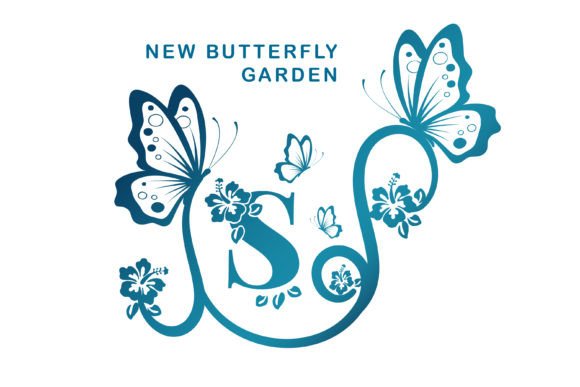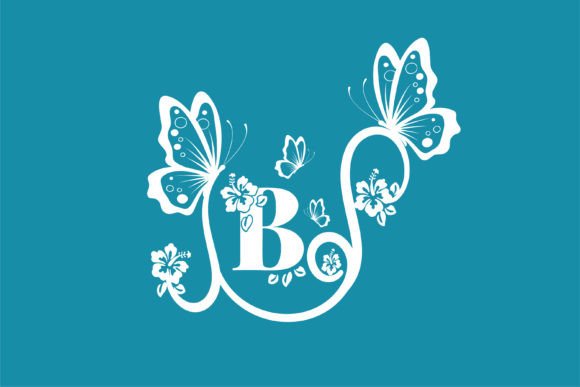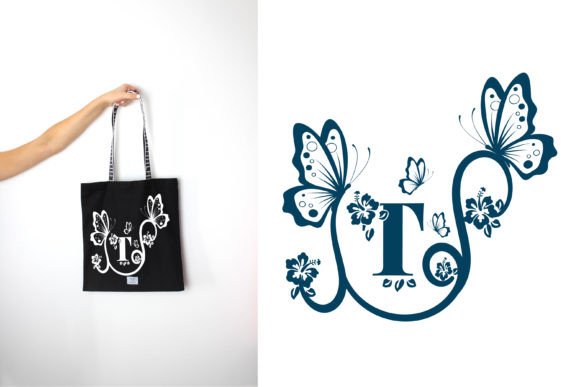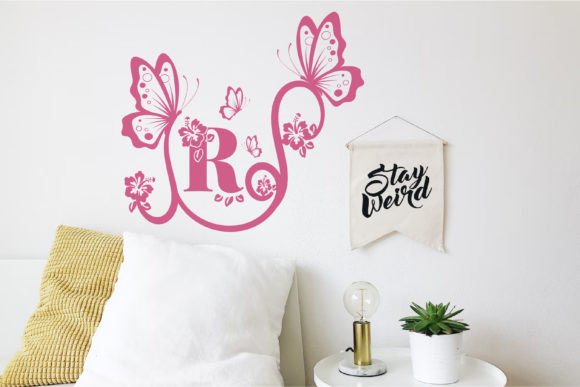
New Butterfly Garden Monogram Font
About the New Butterfly Garden Monogram Font
Elevate your designs with New Butterfly Garden Monogram Font, a font that combines sophistication with readability. New Butterfly Garden is an elegant decorative font, featuring lovely ornaments. Fall in love with its authentic feel and use it to create gorgeous stationary art, eye-catching social media posts, and cute greeting cards.
Its decorative nature makes New Butterfly Garden Monogram Font ideal for headlines, logos, short text blocks on invitations or packaging, and social media graphics. The ornate details, however, would be less effective in body text or UI elements requiring high readability. Avoid using it for large amounts of text or in applications demanding clear legibility at small sizes.
The font’s personality is undeniably elegant and romantic. It projects a sense of refined charm, making it perfect for brands focused on beauty, fashion, weddings, or luxury goods. Consider pairing it with a clean sans-serif like Lato for contrast, or a delicate script font such as Great Vibes for a more cohesive, feminine feel.
For a more modern approach, a geometric sans-serif like Montserrat could provide a balanced counterpoint to the ornate details. This combination would enhance the font’s luxurious feel without being overly fussy.
New Butterfly Garden Monogram Font Usage Examples
New Butterfly Garden Monogram Font Example